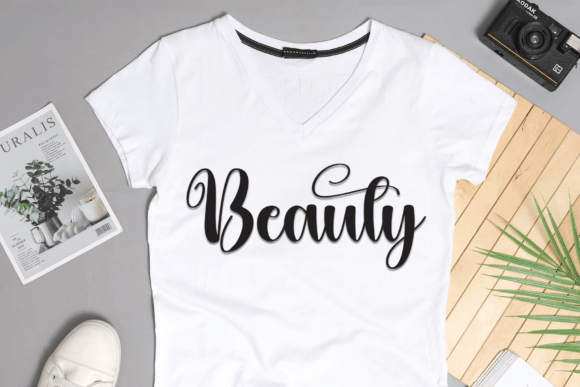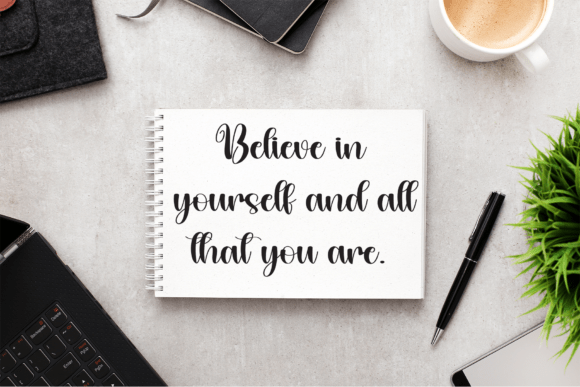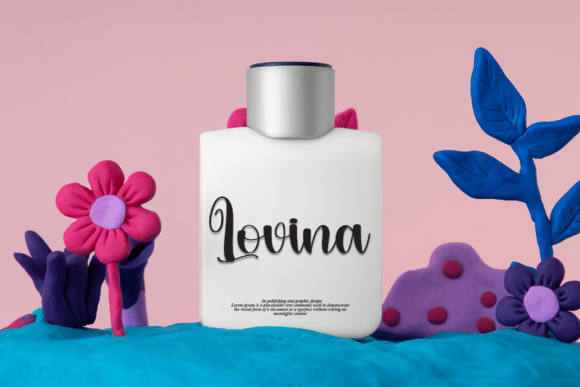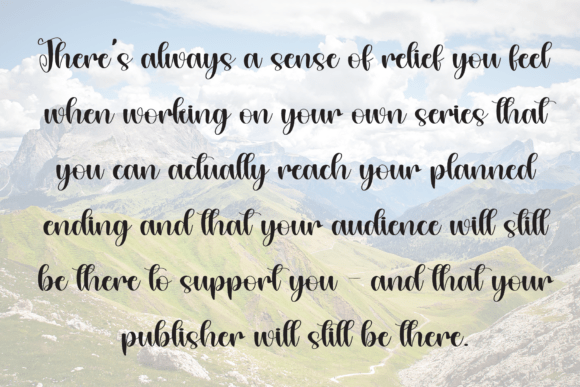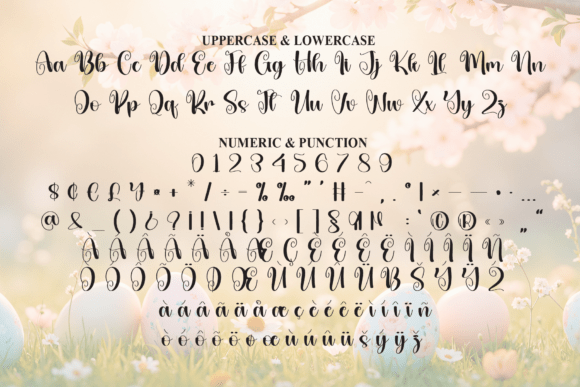
Easter Saturday Font: Elevate Your Designs with Elegance and Playfulness
Are you looking for a font that can add a touch of sophistication and whimsy to your designs? Look no further than Easter Saturday Font, a stylish handwritten script font that captures the essence of elegance and playfulness. With its flowing curves and natural rhythm, this font is perfect for designers and crafters who want to add a personal, charming touch to their projects.
The Characteristics of Easter Saturday Font
Easter Saturday Font is a beautifully designed handwritten script font that boasts a range of characteristics that make it stand out from the crowd. Its flowing curves and natural rhythm give it a sense of movement and fluidity, making it perfect for creating elegant and sophisticated designs. The font’s strokes are carefully crafted to convey a sense of playfulness and whimsy, adding a touch of charm to any project.
Uses for Easter Saturday Font
Easter Saturday Font is a versatile font that can be used in a variety of design projects, including:
- Invitations: Whether you’re designing wedding invitations, birthday party invites, or baby shower announcements, Easter Saturday Font is the perfect choice. Its elegant and playful design adds a touch of sophistication and whimsy to any invitation.
- Branding: Easter Saturday Font is a great choice for branding projects, such as logos, business cards, and letterheads. Its unique and stylish design will help your brand stand out from the competition.
- Social Media: Add a touch of elegance and playfulness to your social media posts with Easter Saturday Font. Whether you’re creating graphics for Instagram, Facebook, or Twitter, this font is sure to make your posts stand out.
Benefits of Using Easter Saturday Font
There are many benefits to using Easter Saturday Font in your designs, including:
- Unique and Stylish: Easter Saturday Font is a one-of-a-kind font that will add a touch of elegance and playfulness to any design.
- Versatile: This font can be used in a variety of design projects, from invitations to branding and social media.
- Easy to Read: Easter Saturday Font is clear and easy to read, making it perfect for designs that require a lot of text.
- Customizable: With Easter Saturday Font, you can customize your designs to fit your brand’s unique style and aesthetic.
Tips for Using Easter Saturday Font
Here are a few tips for using Easter Saturday Font in your designs:
- Use it sparingly: Easter Saturday Font is a bold and stylish font, so use it sparingly to add emphasis to your designs.
- Pair it with other fonts: Experiment with pairing Easter Saturday Font with other fonts to create a unique and stylish design.
- Play with colors: Easter Saturday Font looks great in a variety of colors, so don’t be afraid to experiment and find the perfect color for your design.
Easter Saturday Font is a stylish and elegant handwritten script font that captures the essence of elegance and playfulness. With its flowing curves and natural rhythm, this font is perfect for designers and crafters who want to add a personal, charming touch to their projects. Whether you’re designing invitations, branding materials, or social media posts, Easter Saturday Font is sure to elevate your designs and make them stand out from the crowd.